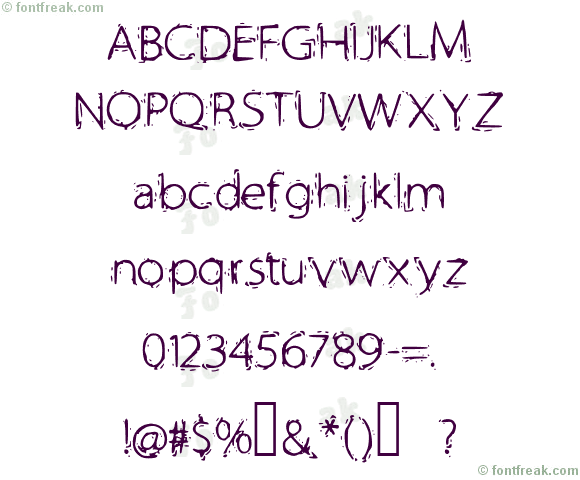
Electric
Electric is a captivating display font created by Leonard Posavec, available for free download through myscriptfont.com. This unique typeface falls into the decorative category, characterized by its energetic and dynamic visual style. The font features a playful stroke weight that varies throughout, creating a sense of movement and excitement. The letters exhibit a high contrast, which adds depth and visual interest, while the spacing is thoughtfully designed to ensure readability and impact.
The Electric font is perfect for a variety of creative applications. It works exceptionally well for event posters, where its vibrant energy can attract attention and convey an exhilarating atmosphere. Additionally, it is a fantastic choice for music festival branding, providing a modern and youthful vibe that resonates with audiences. The font can also enhance product packaging for quirky brands, giving a unique personality to items aimed at younger consumers. Furthermore, it can be effectively used in digital content, such as social media graphics, helping to create engaging visuals that stand out in crowded feeds.
The target audience for Electric includes graphic designers, small business owners, and content creators looking for a font that embodies creativity and uniqueness. Its eye-catching design makes it an ideal choice for those wanting to leave a lasting impression.
What sets the Electric font apart is its ability to blend fun and functionality. It captures attention while remaining legible, making it versatile for various projects. Whether you're designing an invitation, a logo, or promotional material, the Electric font free download offers a fresh and lively alternative that can elevate your work. Embrace the energy of Electric and let your designs shine.